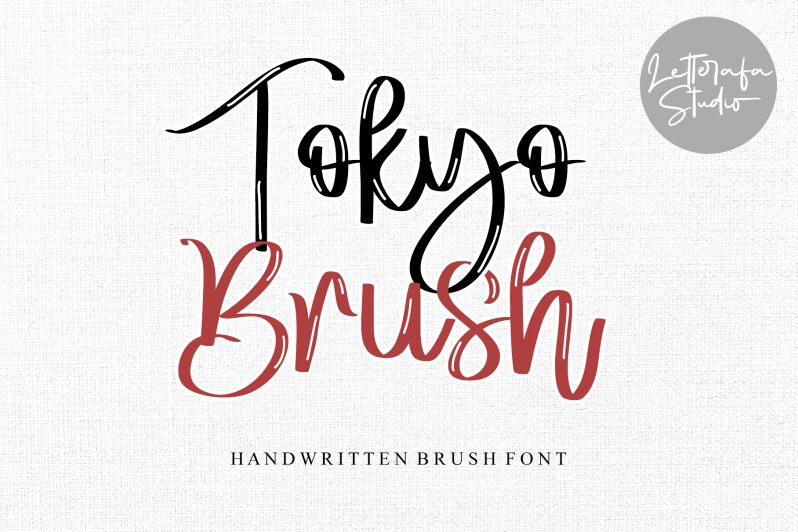
Tokyo Brush font, designed by Letterafa Studio, is an artistic and expressive handwritten font that captures casual elegance with a creative flair. Its strokes are smooth yet distinctly imperfect, expressing the personal craftmanship of hand lettering. A versatile free handwritten font worth trying out where eye-catchy display headlines are needed.